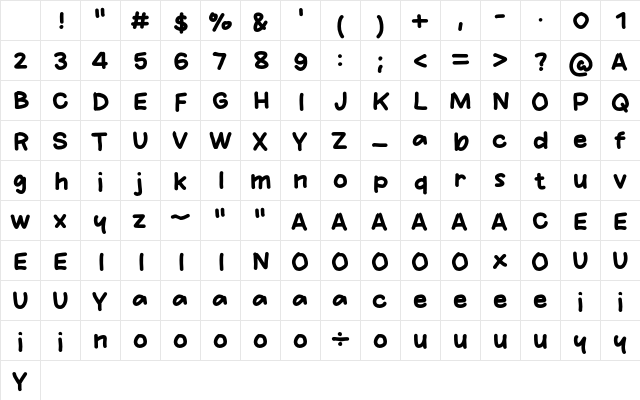
Complete Obled Kids Regular glyph index. Displaying only characters natively supported by Obled Kids Regular font.
Obled Kids has an approachable, lighthearted character - its loose, expressive forms are well-suited to children's content, casual branding, and fun-first design.
Font Pairing: Pairs well with a rounded or humanist sans for body copy, maintaining the friendly tone without relying on Obled Kids to carry extended reading.
Pro Tip: Use Obled Kids at larger display sizes where its expressive character can land. Pair with a clean, simple sans for body copy to maintain readability.